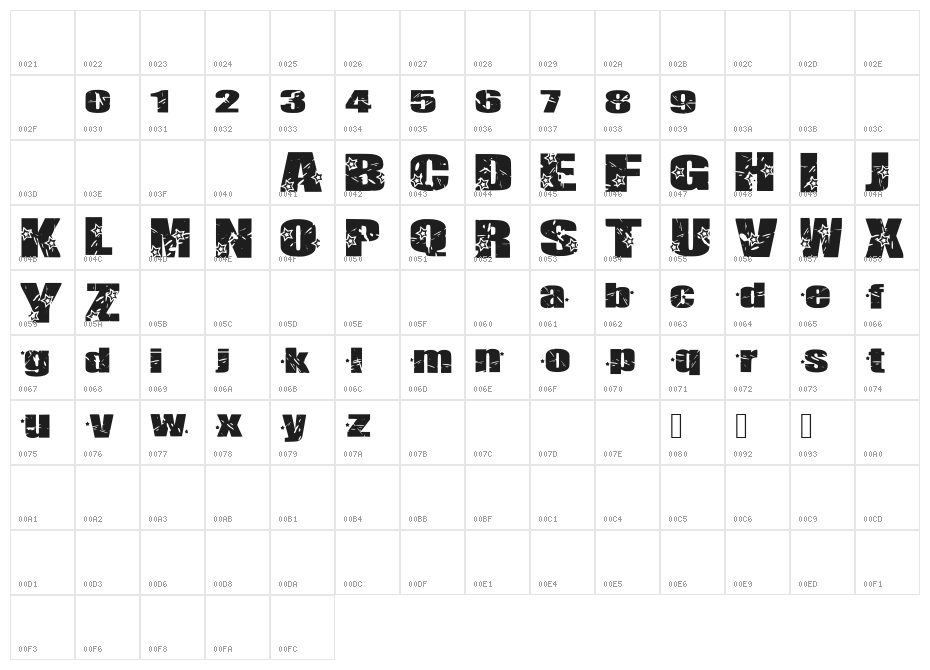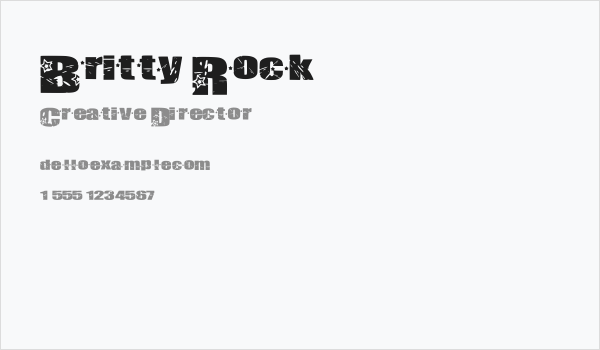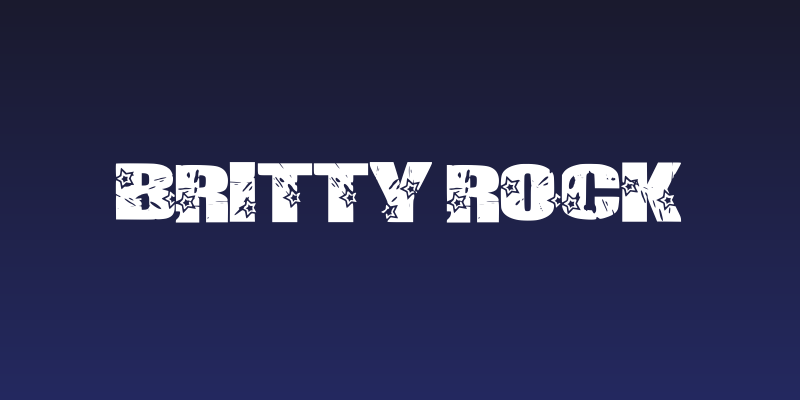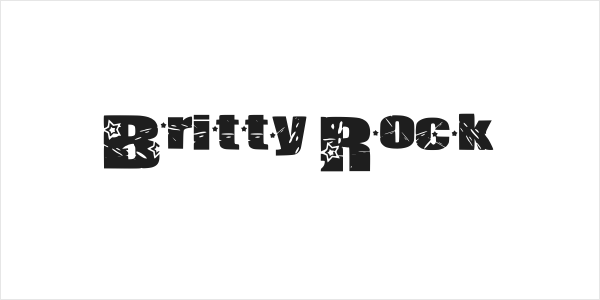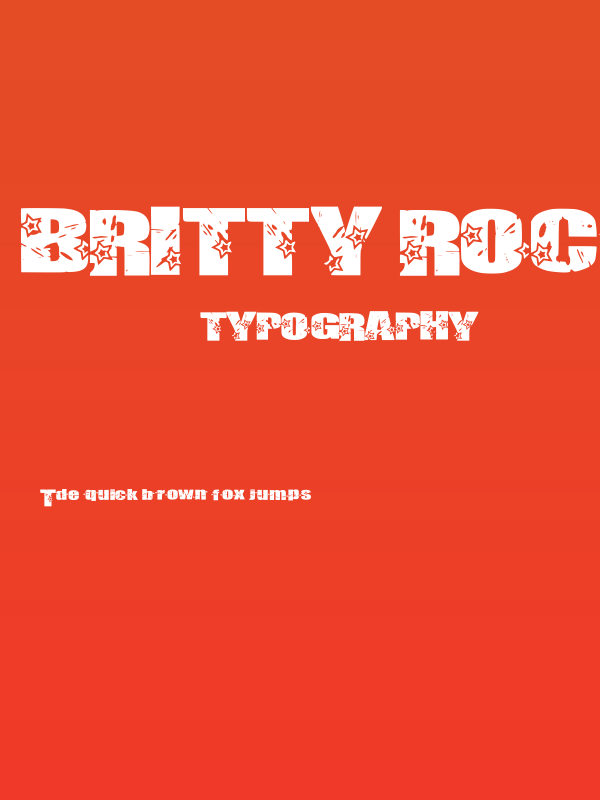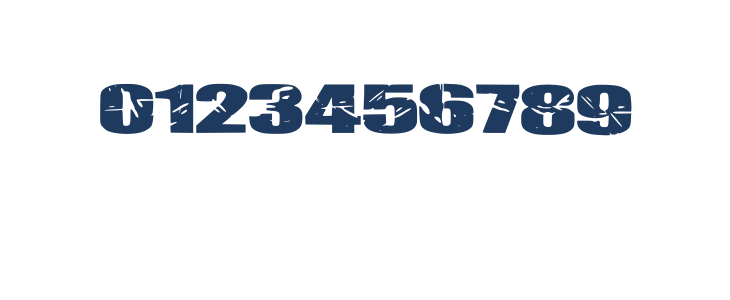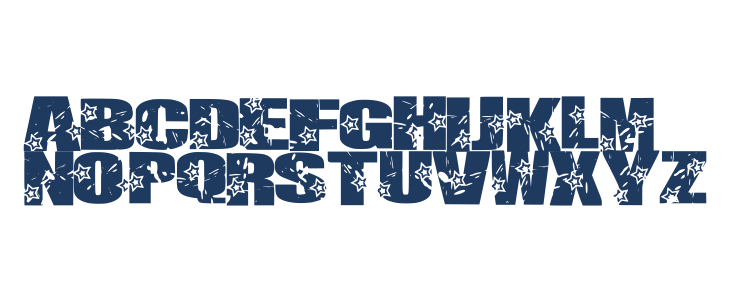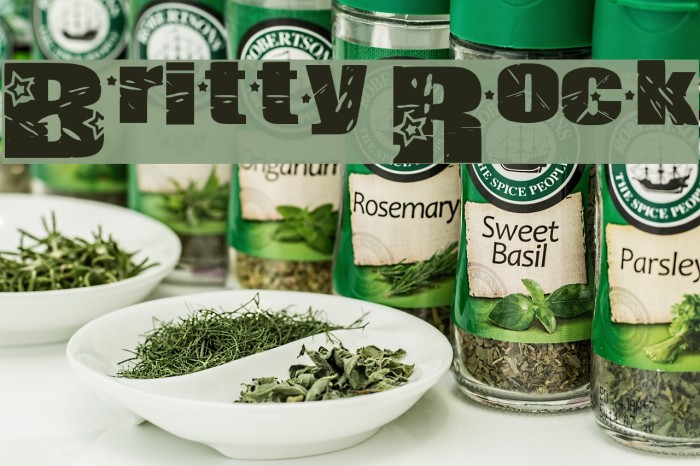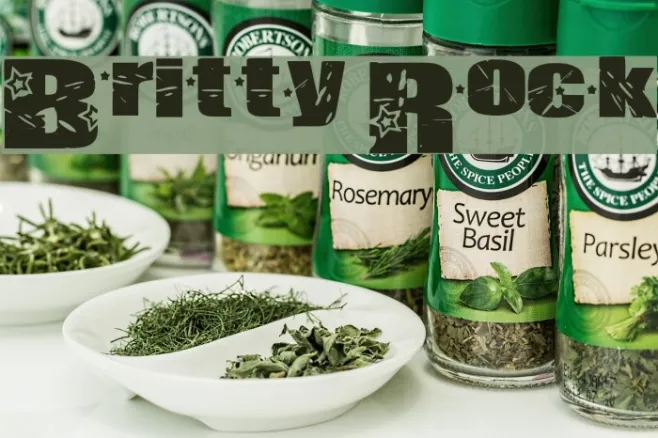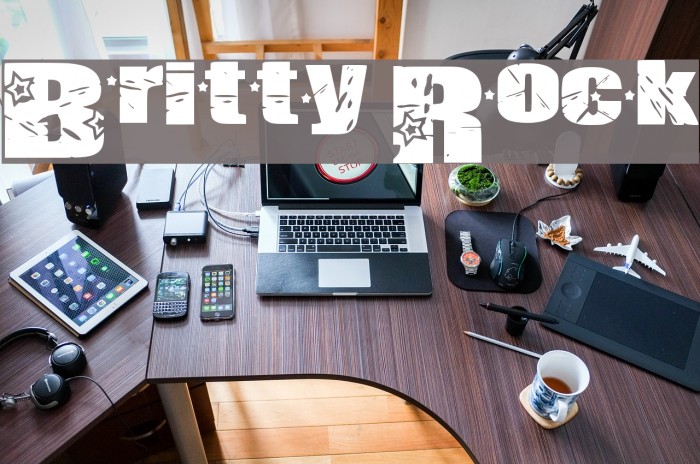
Britty Rock Font
Britty Rock Description
This font features a bold and striking design with a distressed texture that incorporates star patterns within each character. The uppercase and lowercase letters, as well as numbers, maintain a consistent style that is both eye-catching and edgy. The font's unique aesthetic is reminiscent of rock and roll themes, making it ideal for projects that require a strong visual impact. The characters are wide and have a substantial presence, which is enhanced by the decorative elements embedded in the design.
| Proposed Projects | Ideal for music album covers, concert posters, edgy branding, and merchandise designs. |